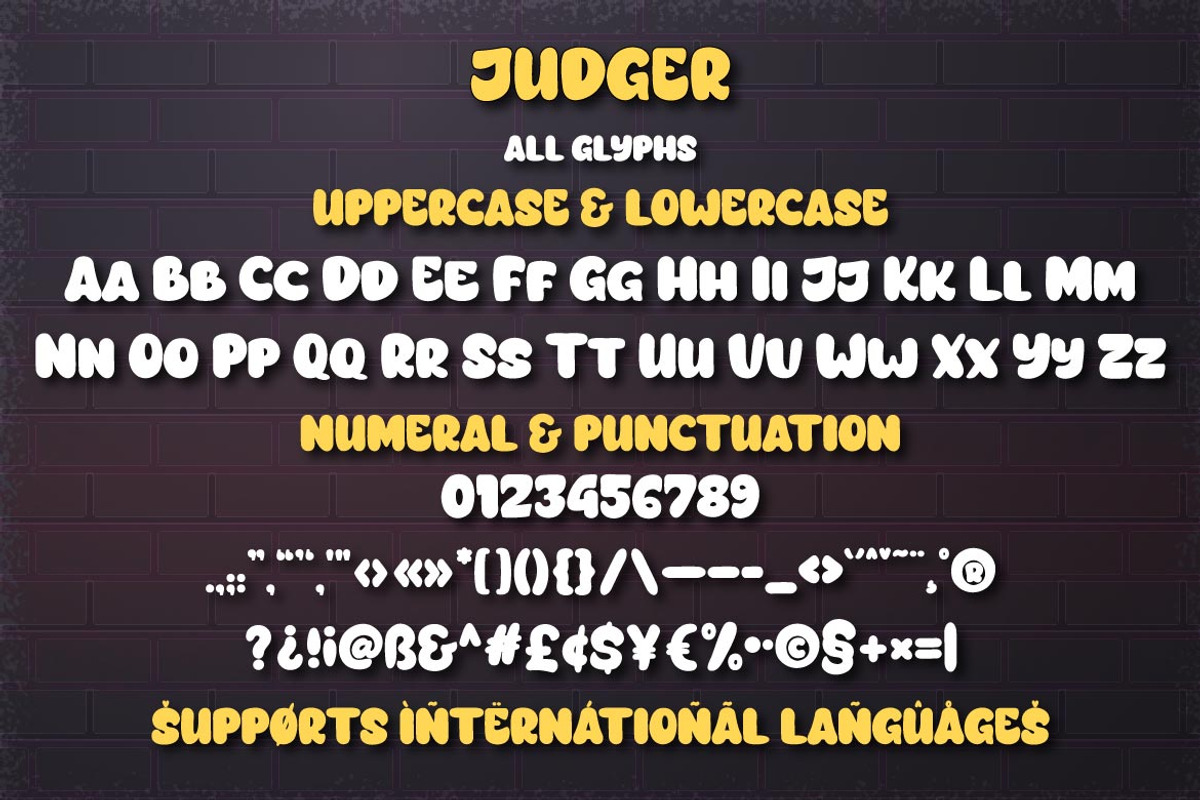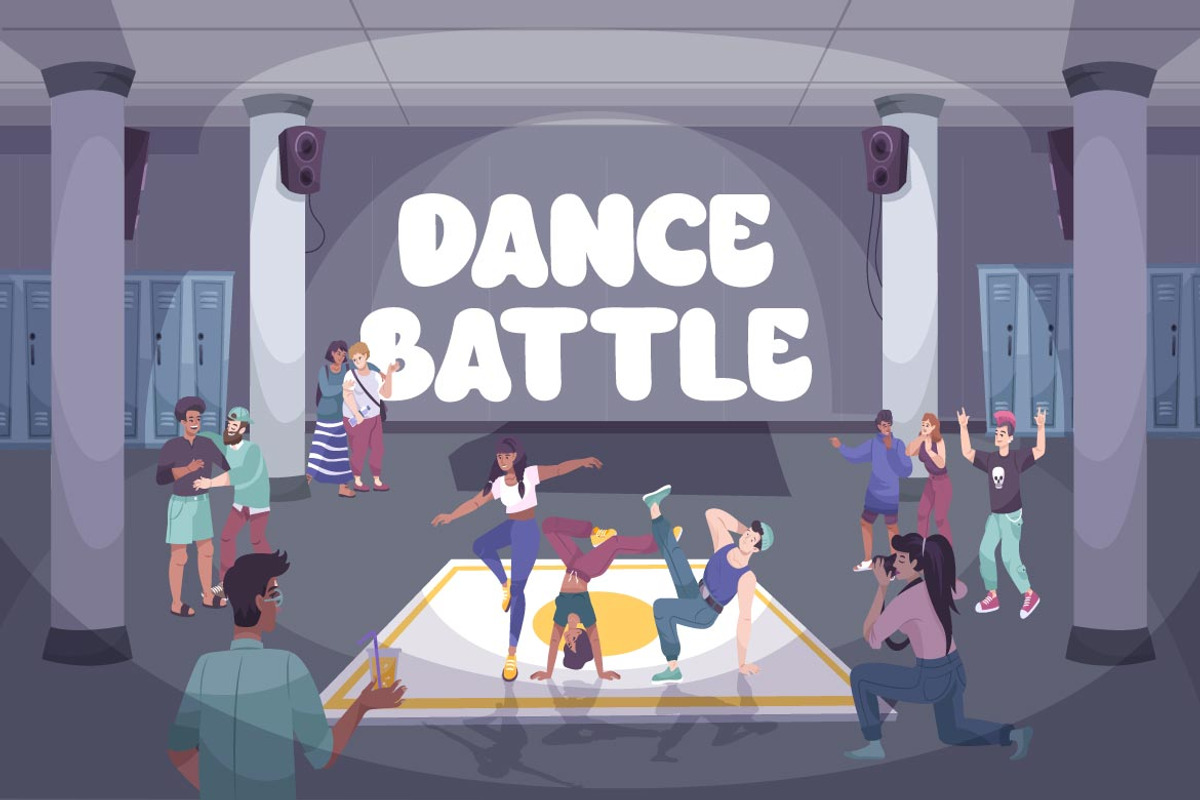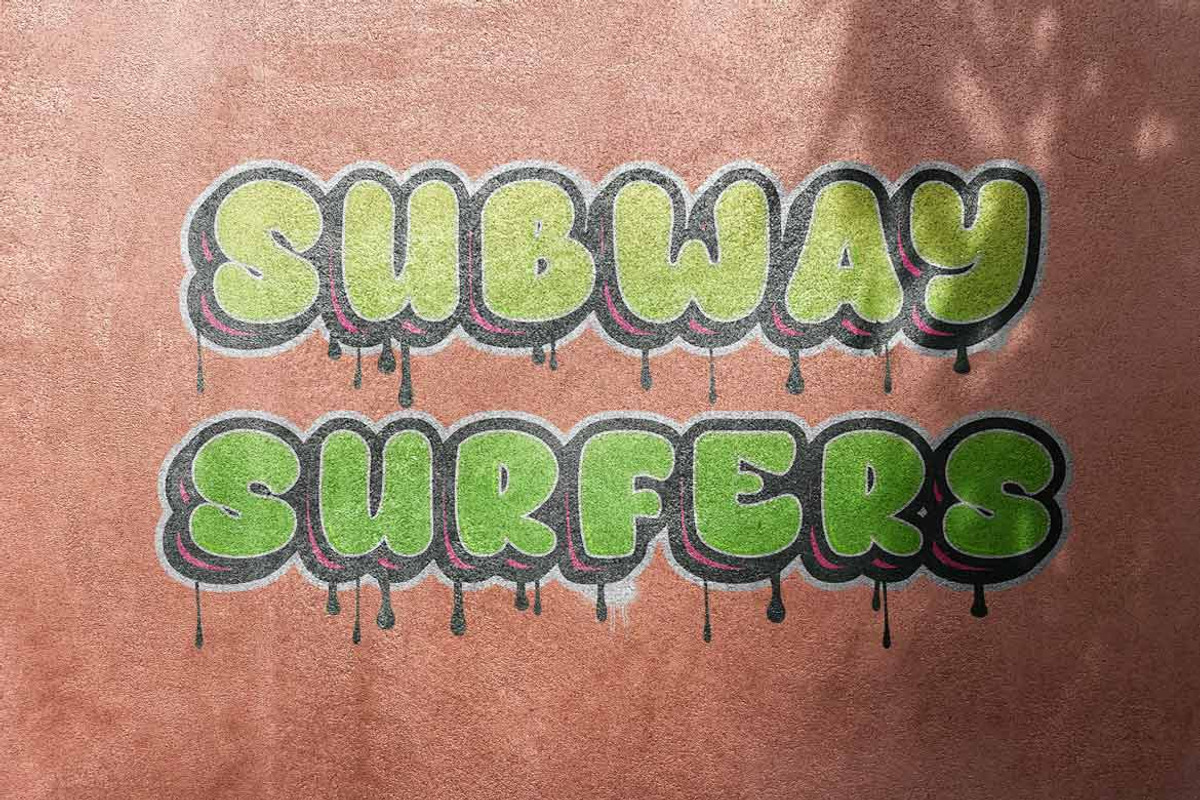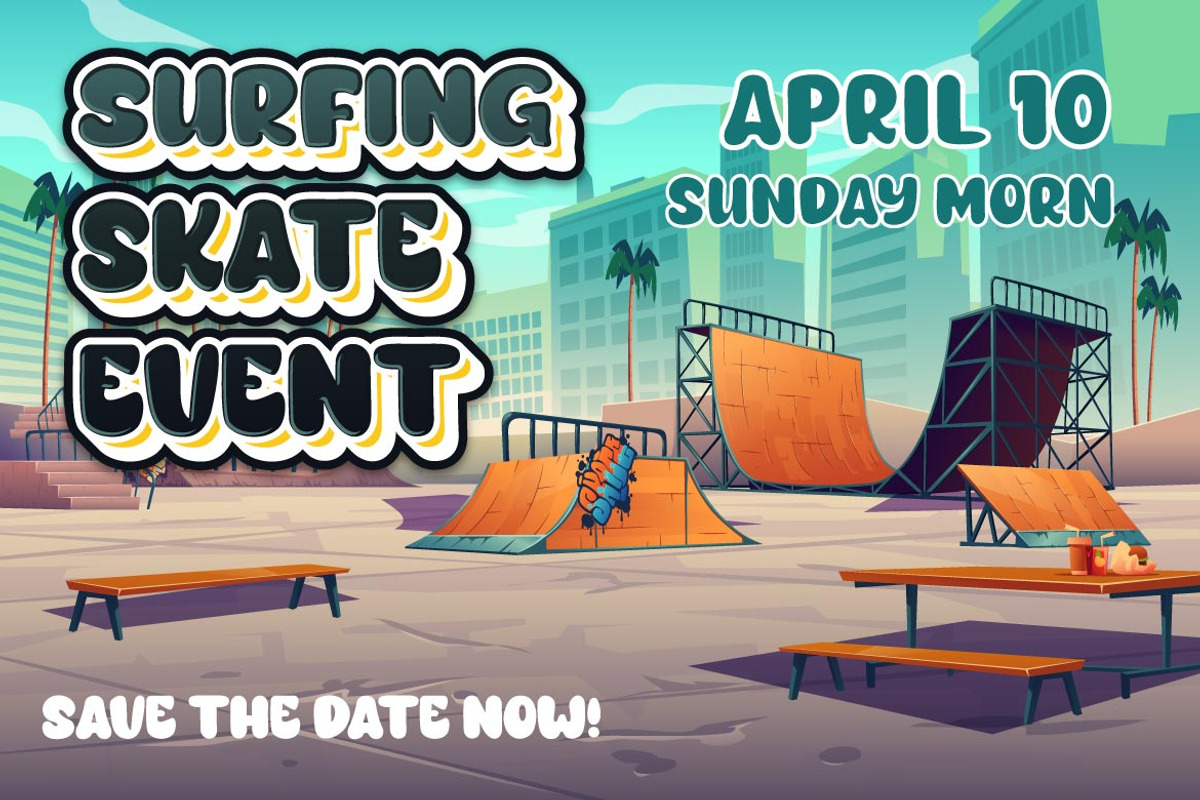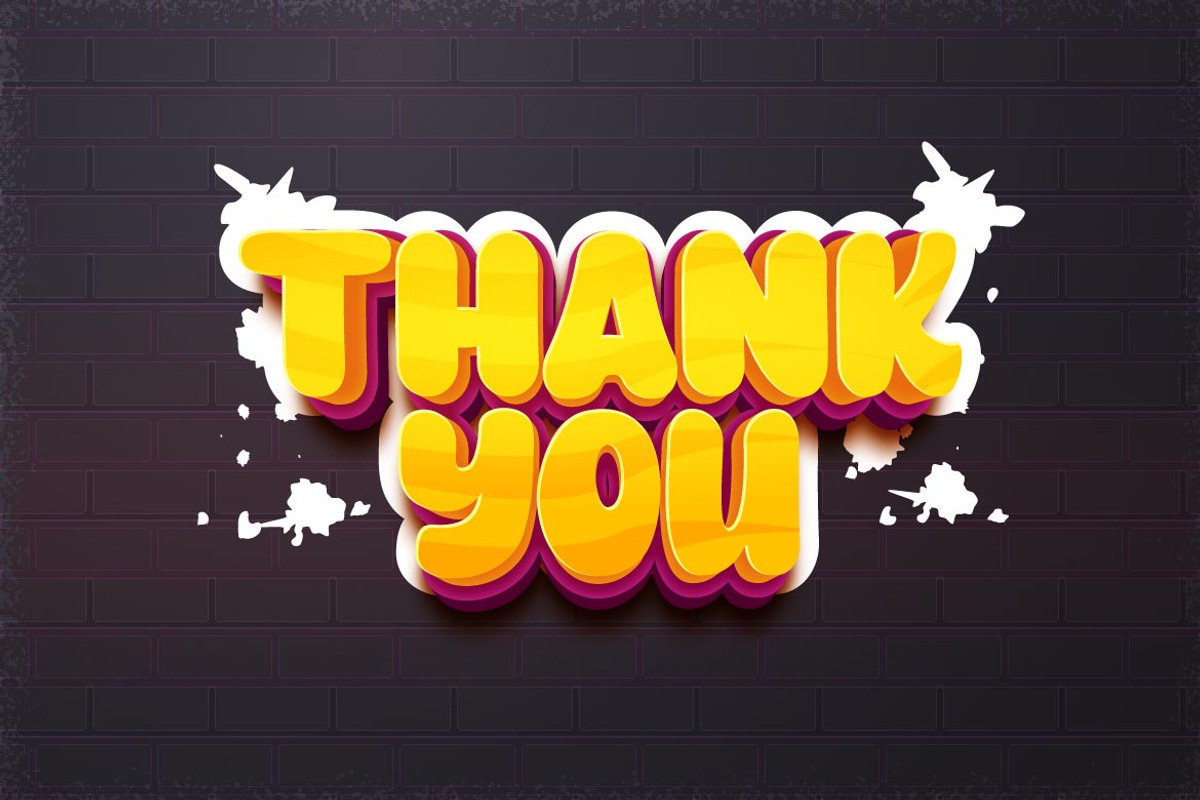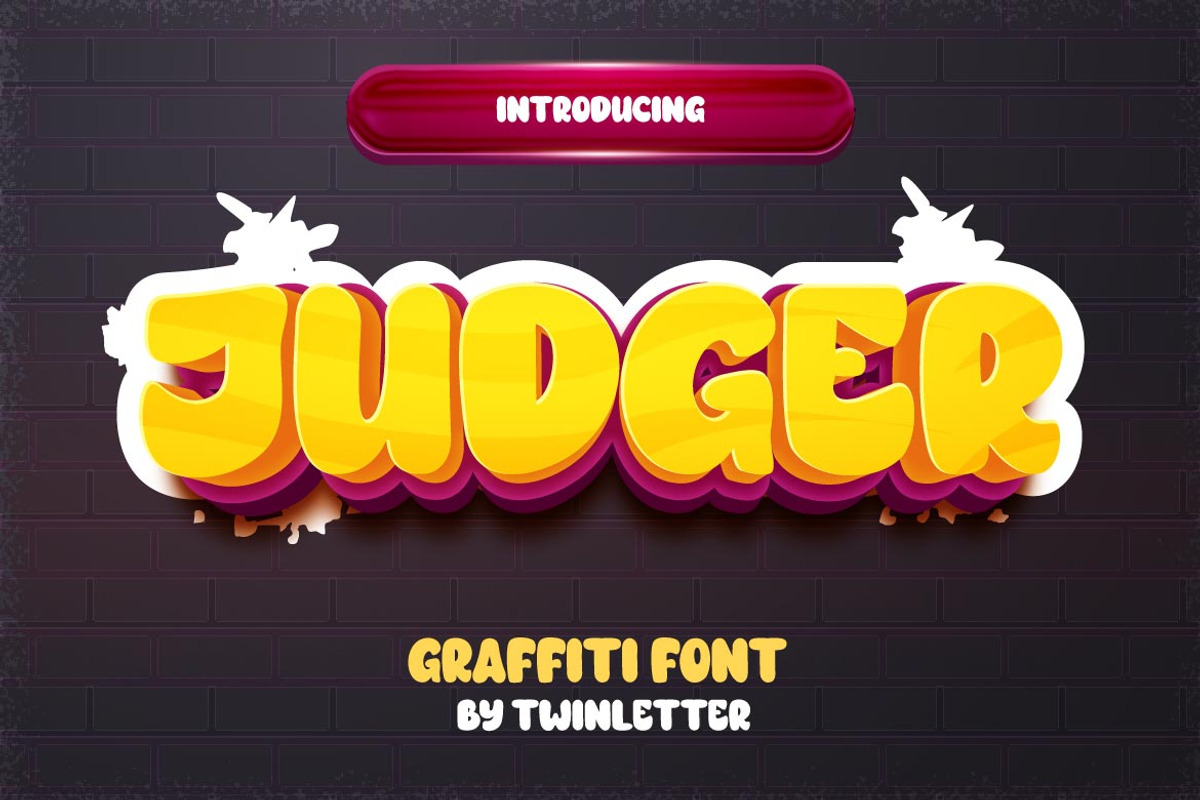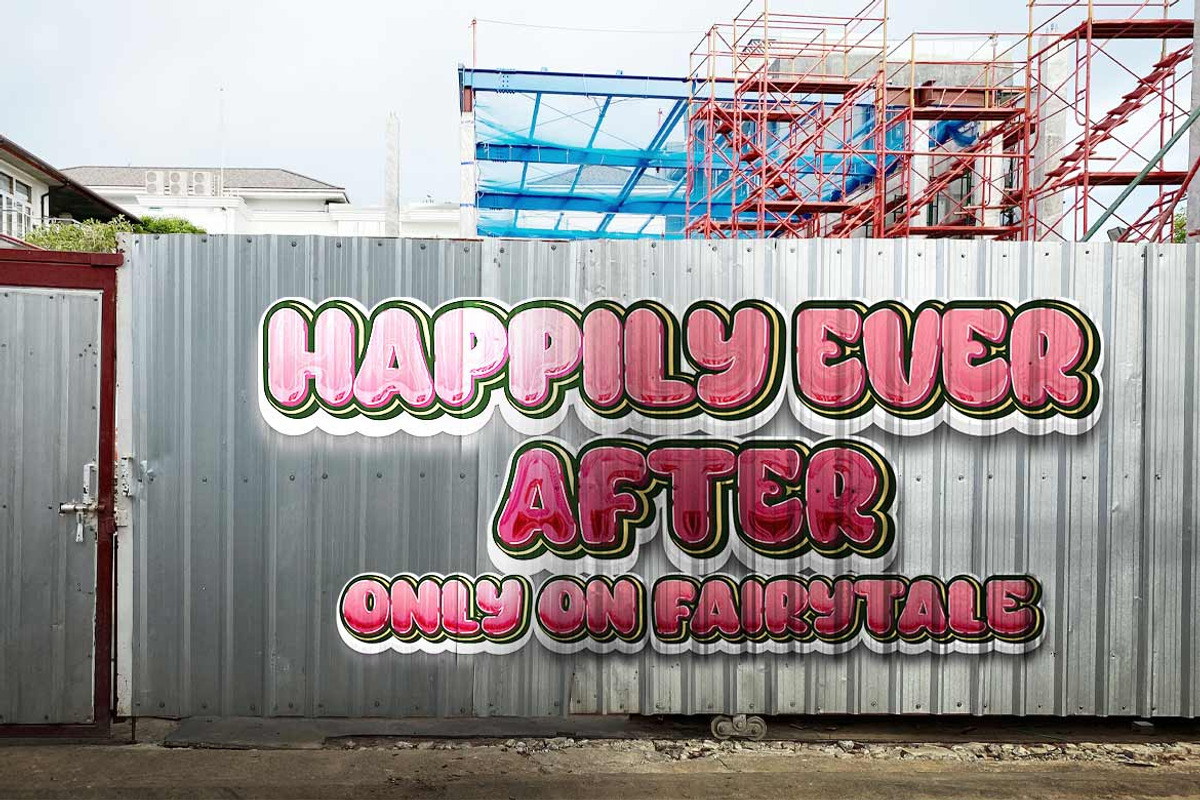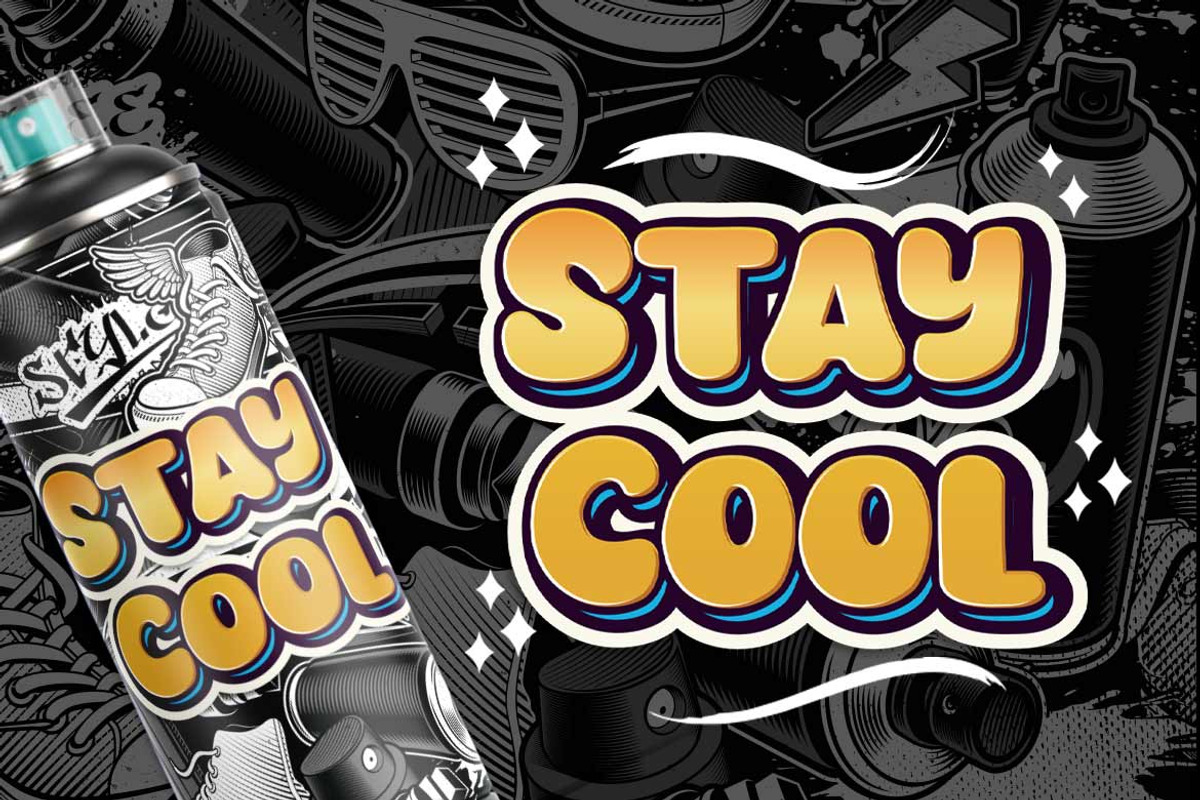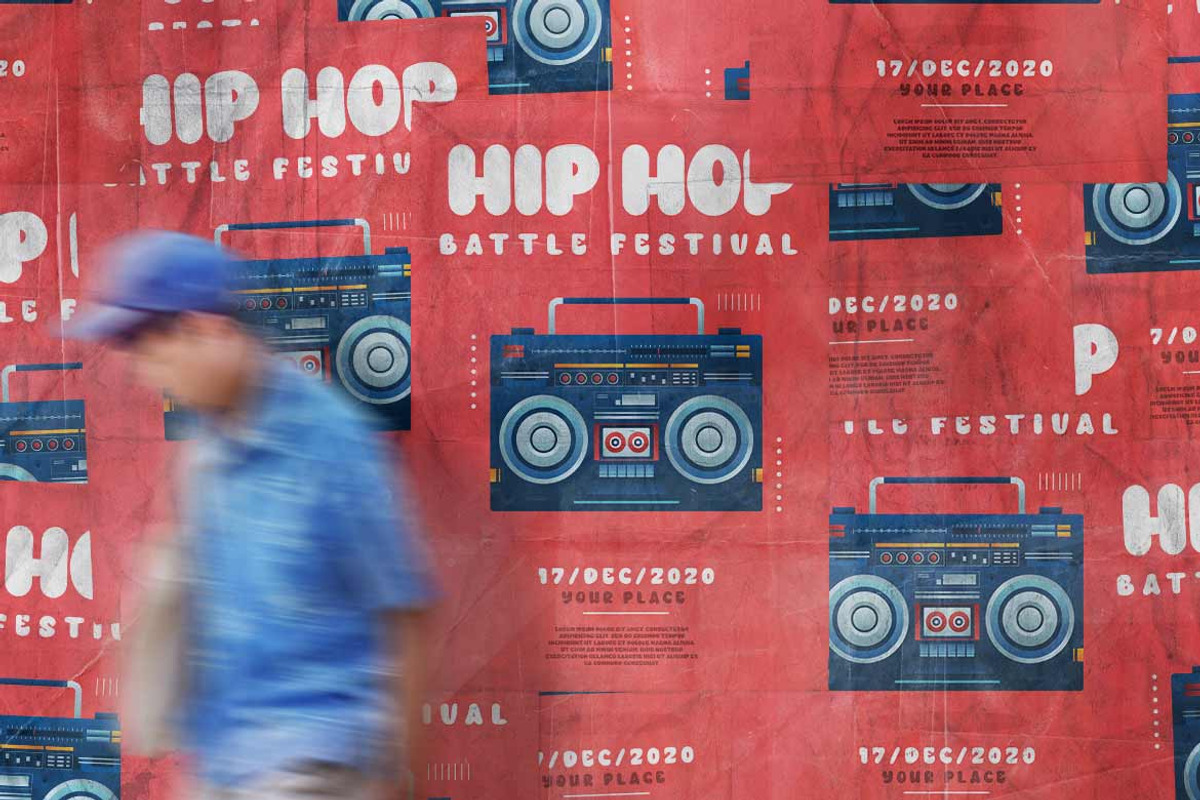
Judger
Judger is a graffiti typeface that we created with the purpose of producing unique works that can be applied to a number of your projects, prioritizing high flexibility in order to make it easier for you to respond to your diverse needs. This typeface is not only versatile, but it will also make your project look appealing, attractive, and cool. When you use this font, viewers will perceive your project as high quality, professional, and well-designed, and your project will be highly rated.
This graffiti font is great for product logos, poster titles, headlines, packaging, film titles, logotypes, gorgeous writing, and trendy graffiti designs, among other things.